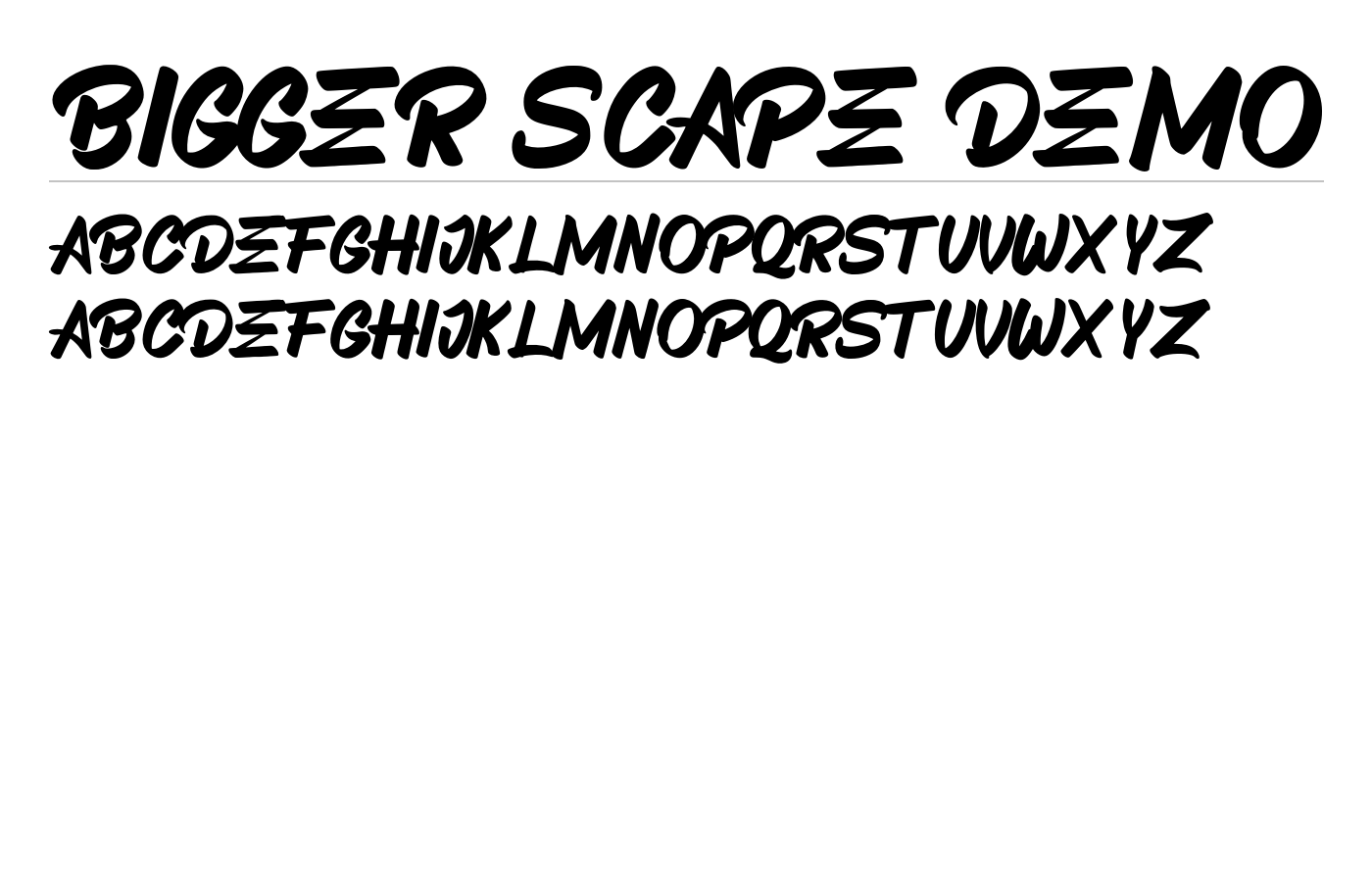
BIGGER SCAPE Demo is a bold and energetic script font with a hand-drawn feel that combines smooth curves and dynamic strokes, creating a lively and casual personality. Its playful, slightly irregular letterforms make it ideal for informal branding, posters, and creative projects that want to convey friendliness and spontaneity. This font works well in display uses where a strong, personal touch is needed to engage viewers.
BIGGER SCAPE Demo Font